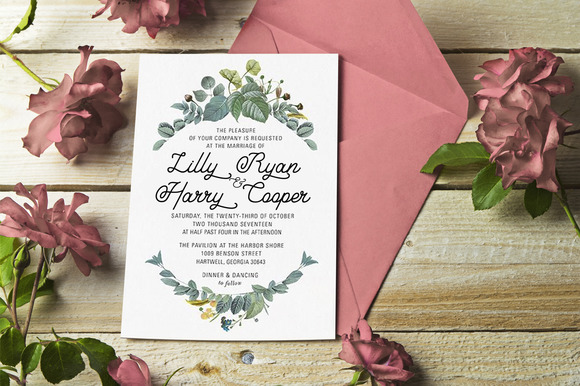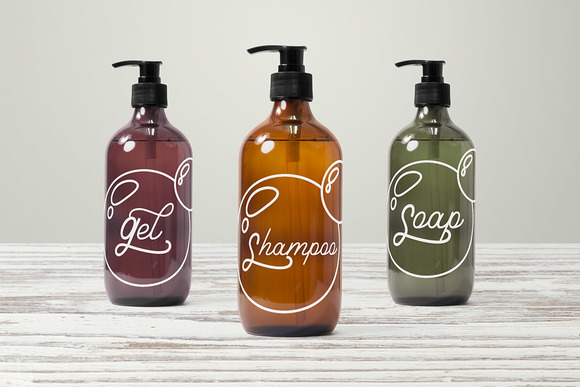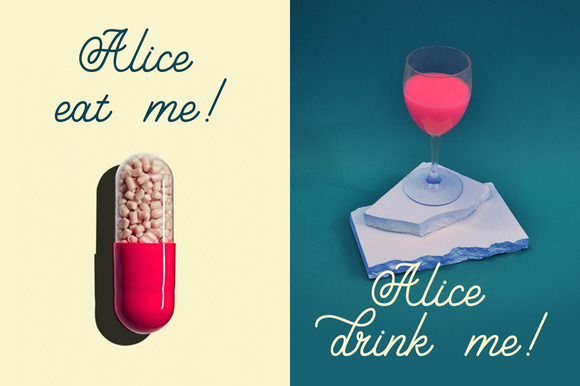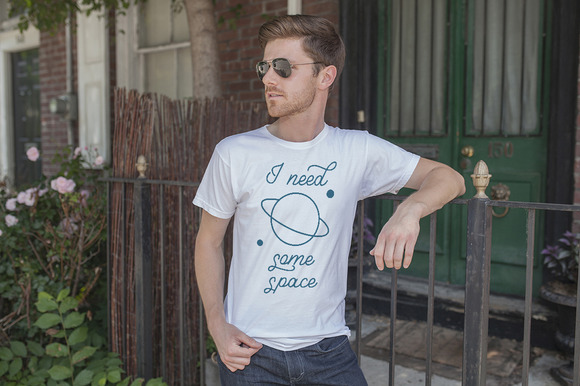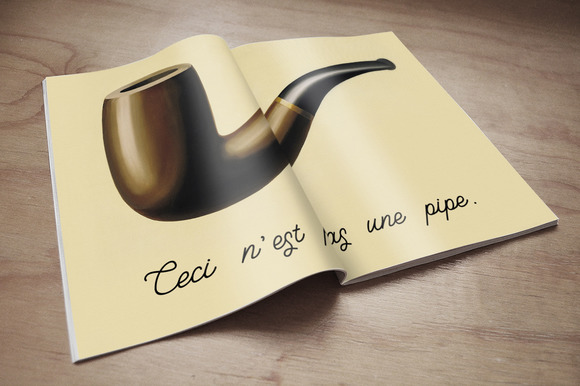
Introduction to Savoiardi Script Font
Savoiardi Script is a mono line script font created by Etewut.
Contains alternate swashes, is PUA encoded and has multi-lingual support .